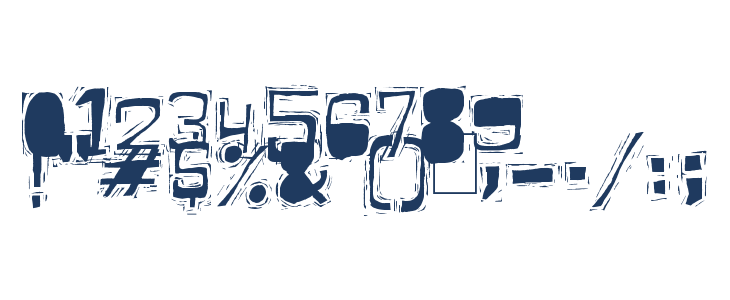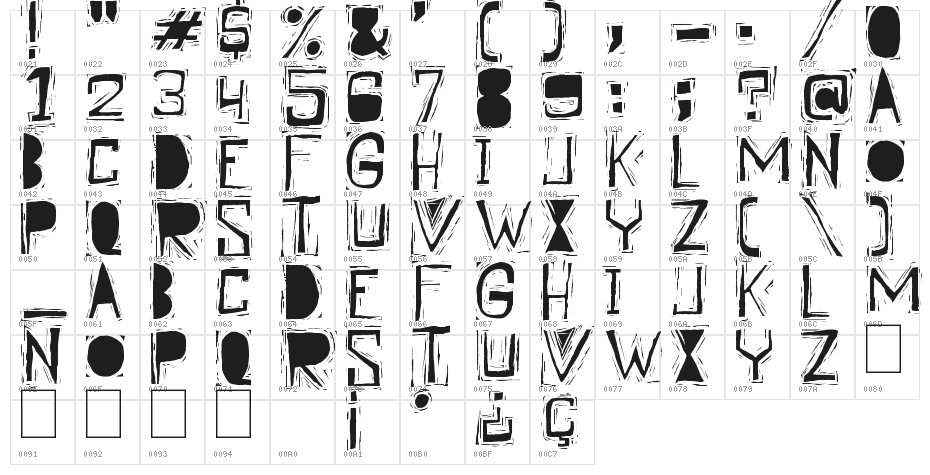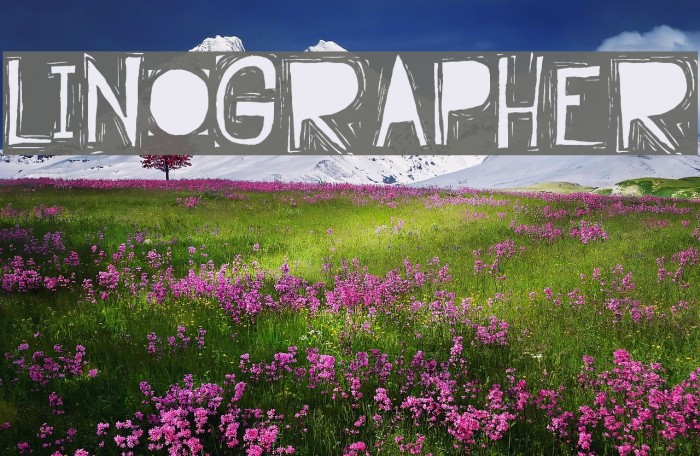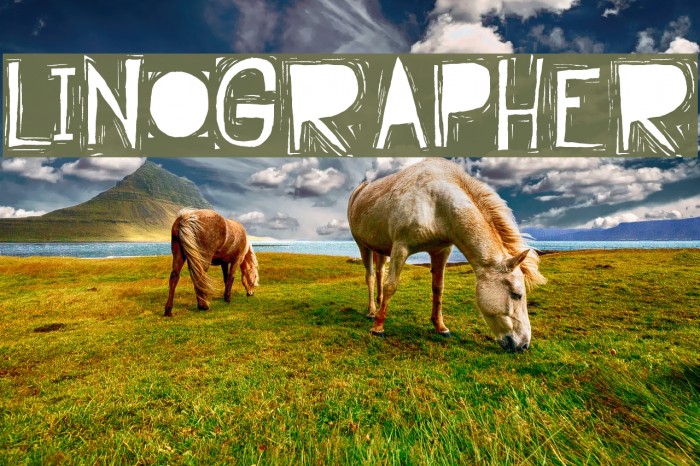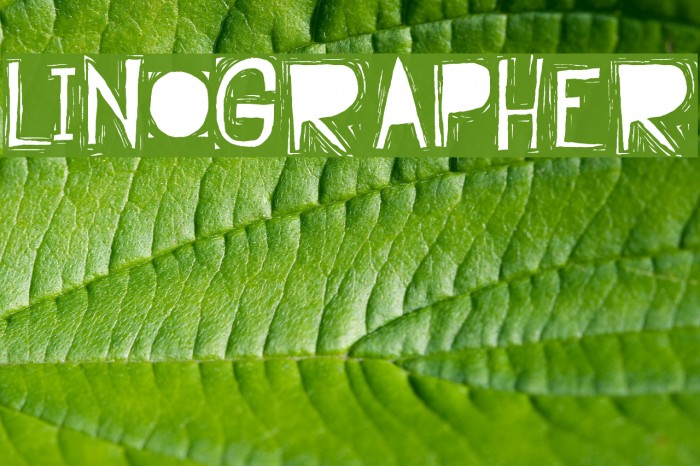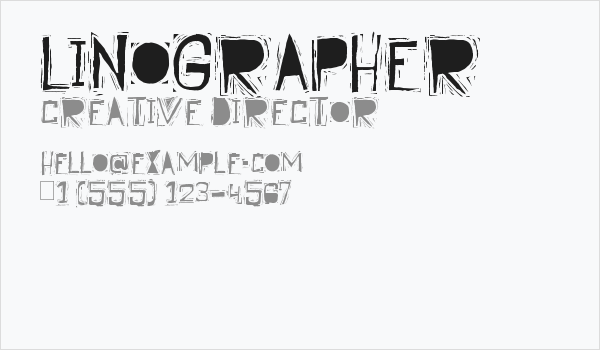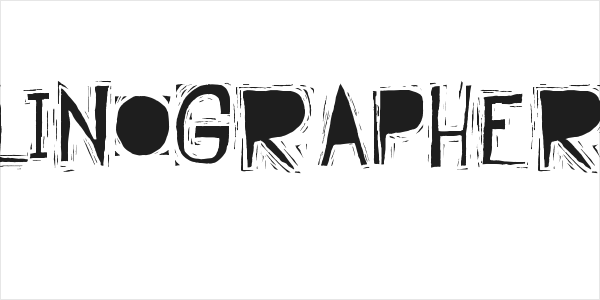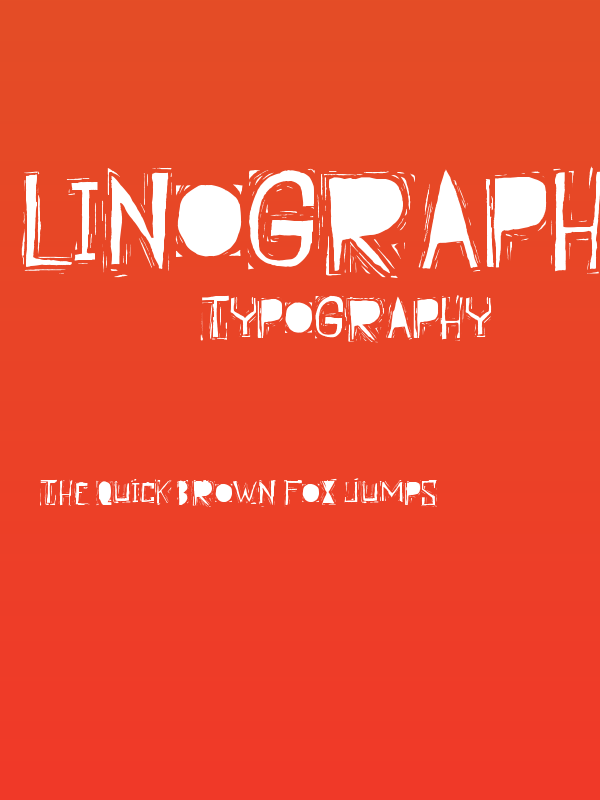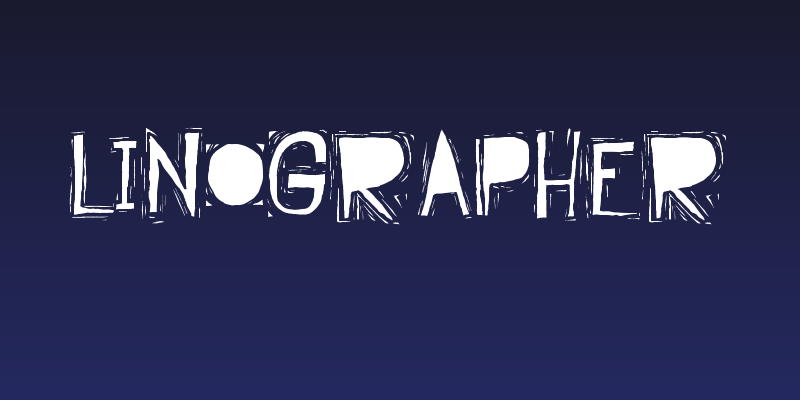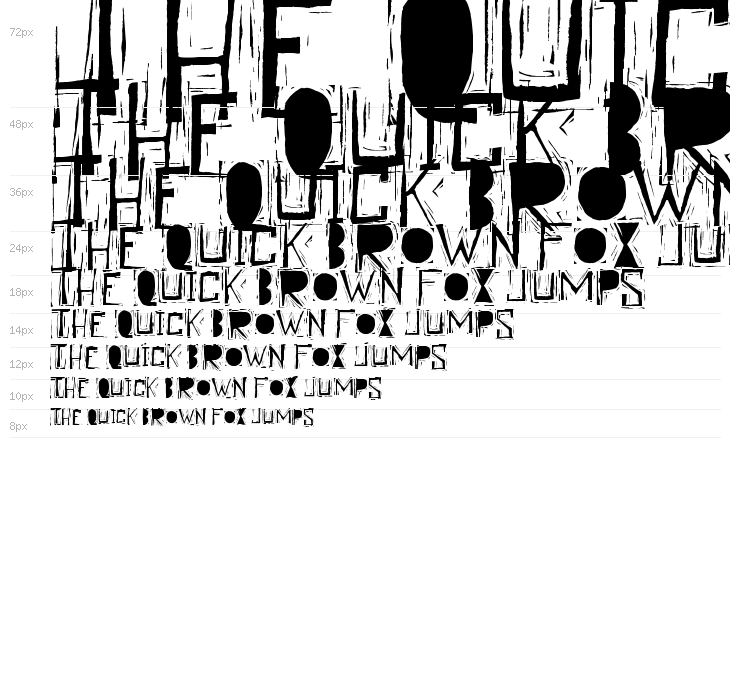
Linographer Font
Linographer Description
This font is a bold, decorative typeface with a distressed, hand-drawn appearance. Each character is uniquely crafted with rough, uneven edges, giving it a raw and edgy feel. The uppercase and lowercase letters maintain a consistent style, with exaggerated strokes and an irregular texture that adds a sense of dynamism and movement. The numerals and special characters follow the same design principles, ensuring a cohesive look across all elements. This font is ideal for projects that require a bold statement or an artistic touch, such as posters, album covers, or branding materials.
| Proposed Projects | Ideal for posters, album covers, branding materials, and any project needing a bold, artistic touch. |